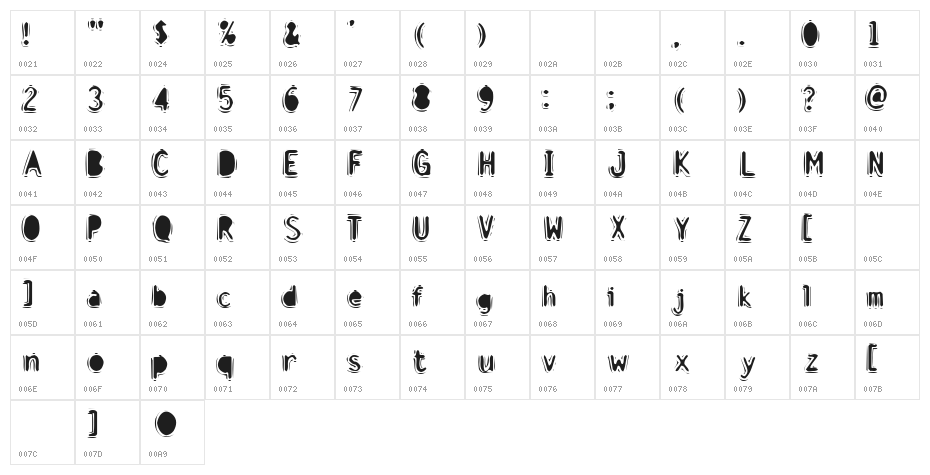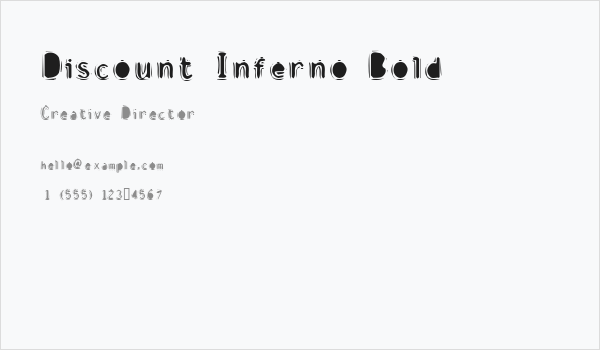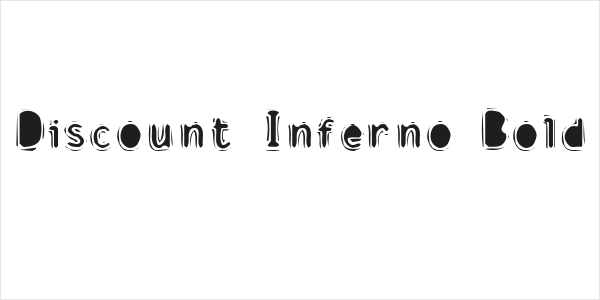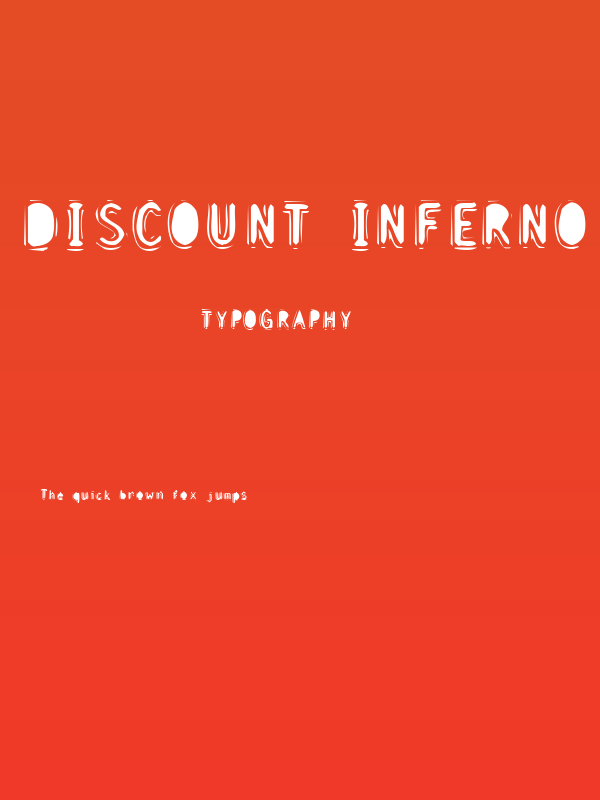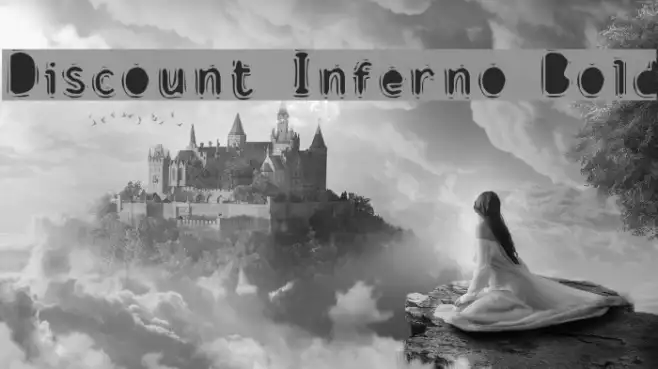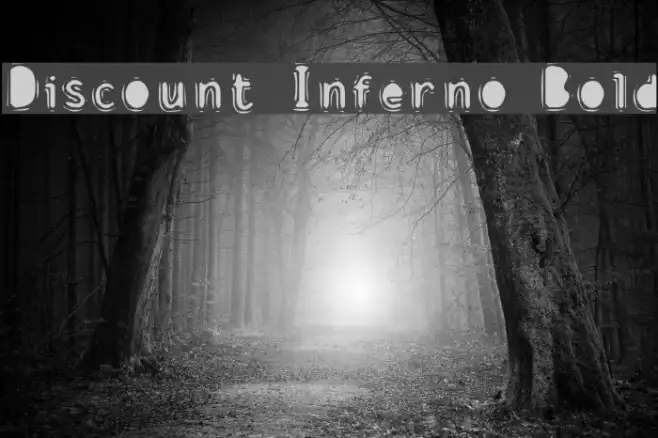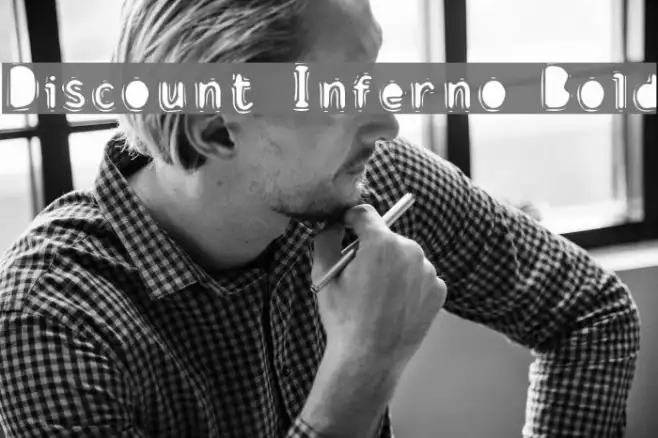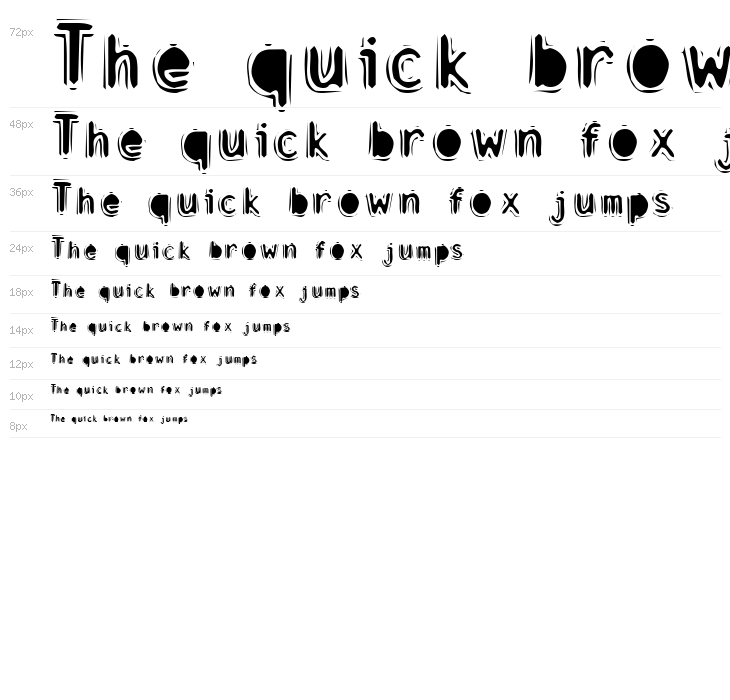
Discount Inferno Bold Font
Discount Inferno Bold Description
This font features a bold, dynamic style with a unique distressed effect that gives it a fiery, energetic appearance. The characters are heavily stylized with thick strokes and irregular edges, creating a sense of movement and intensity. The uppercase and lowercase letters maintain a consistent design, while the numerals and special characters complement the overall theme. The font's boldness and distinctive look make it stand out, ideal for projects that require a strong visual impact.
| Proposed Projects | Ideal for posters, album covers, video game graphics, and branding that requires a bold, eye-catching design. |